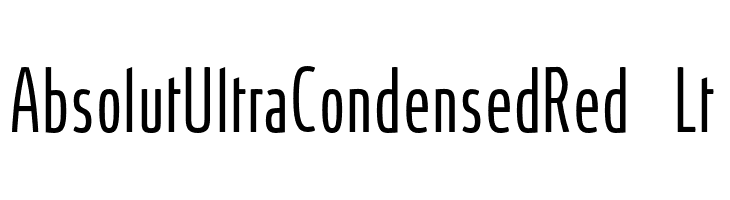
A clean, modern font with smooth curves and a minimalist design.
A clean, geometric font with a modern and minimalist design.
A modern, rounded font with geometric shapes and uniform stroke width.
Tra i preferiti recenti: Poppins, Roboto, Montserrat, Open Sans e Lato. Bilanciano chiarezza e personalità; ideali per brand tech, editoriali e social.